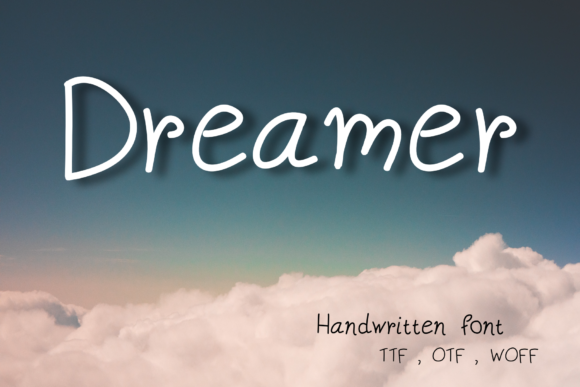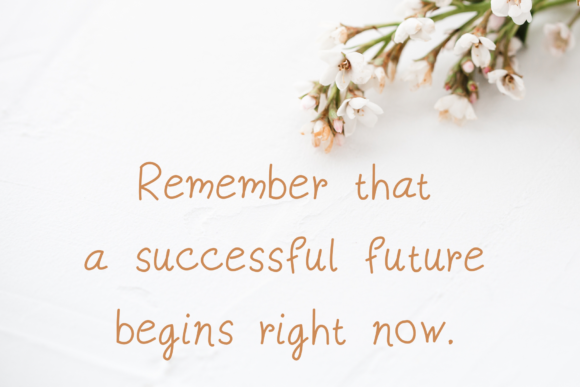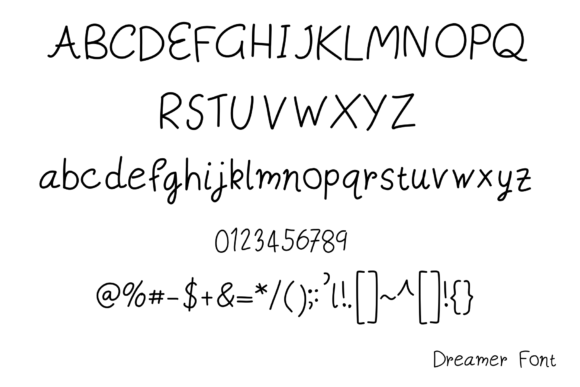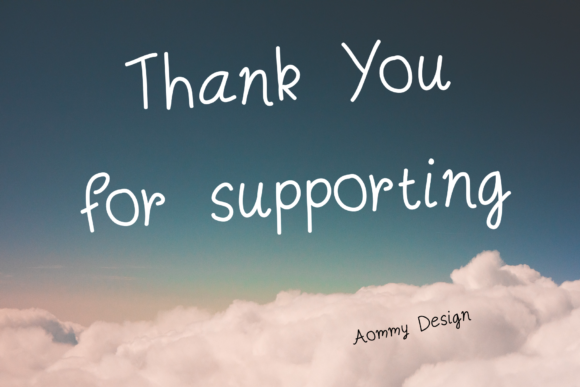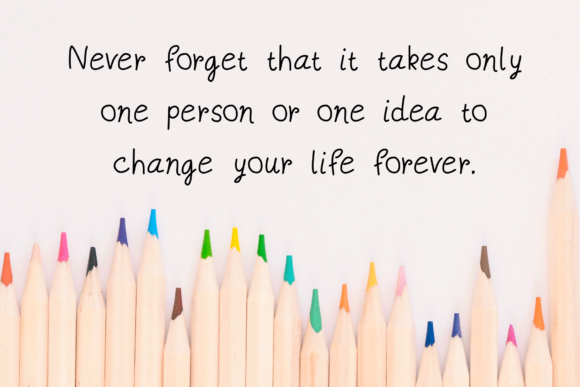
Dreamer Font
About Dreamer Font
Dreamer is a charming and whimsical handwritten font that adds a touch of enchantment to your designs. With its delicate strokes and playful curves, Dreamer is perfect for creating wedding invitations, cards, and any design that requires a romantic and personalized touch.
The graceful and dreamy style of Dreamer captures the essence of romance and joy. Its dainty letterforms and flowing lines exude a sense of elegance and beauty, creating a whimsical atmosphere. Whether you’re designing wedding stationery, love notes, or greeting cards, Dreamer brings a touch of magic and sweetness to your projects.
The versatility of Dreamer allows it to be used in various design applications. It is perfect for creating wedding invitations, capturing the romantic spirit of the event. The delicate nature of Dreamer also lends itself well to designing cards for special occasions such as anniversaries, birthdays, and Valentine’s Day.
Dreamer’s handwritten charm extends beyond invitations and cards. It can be used to create beautiful quotes, posters, and social media graphics that evoke a sense of wonder and delight. Its unique personality adds a personal touch to any design, making it stand out and resonate with viewers.
With Dreamer, you have the ability to create designs that reflect the dreamy and romantic moments in life. Its delicate and joyful nature brings a sense of warmth and intimacy to your projects. Embrace the whimsical charm of Dreamer and let it infuse your designs with a touch of magic and love.